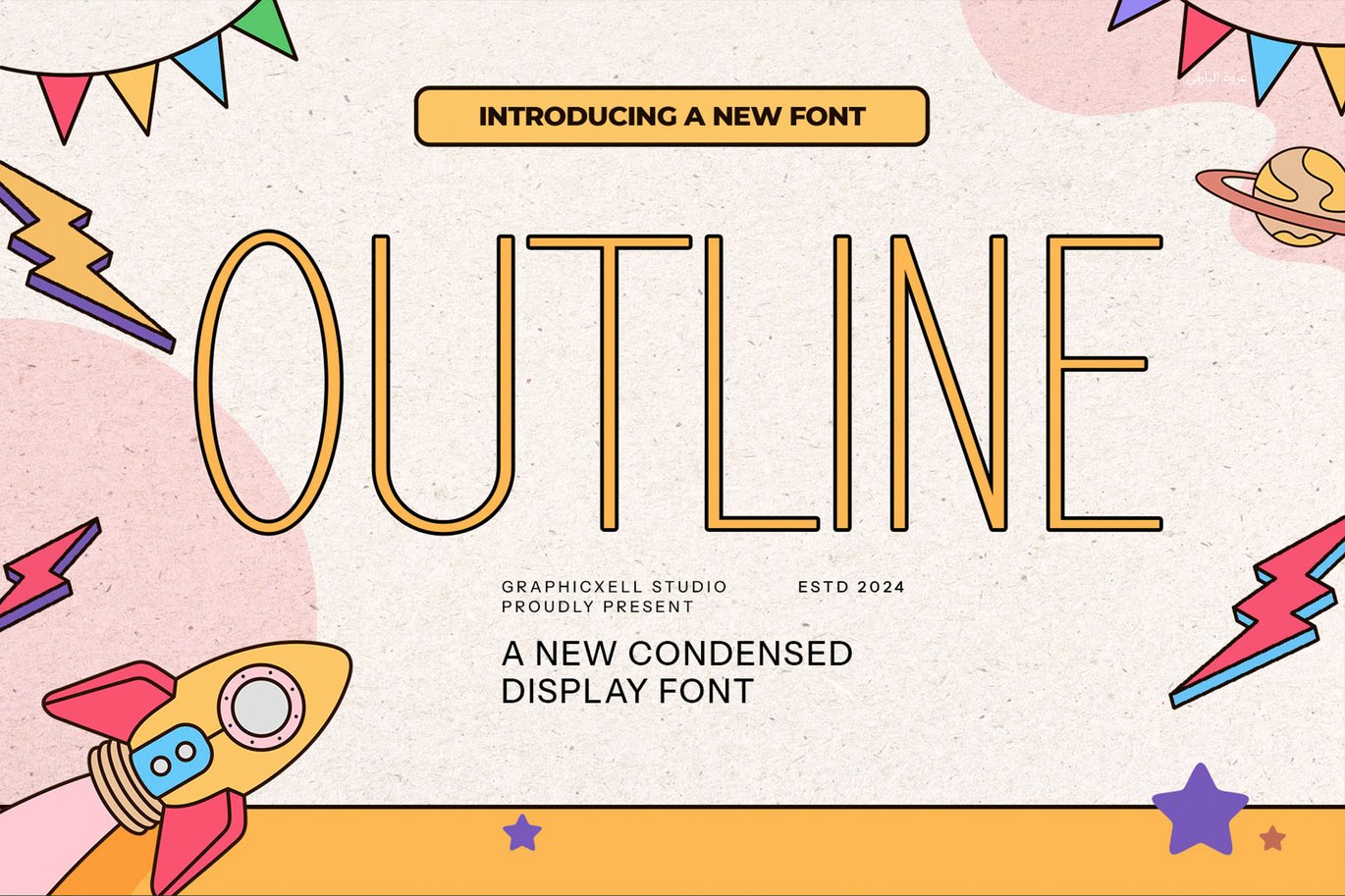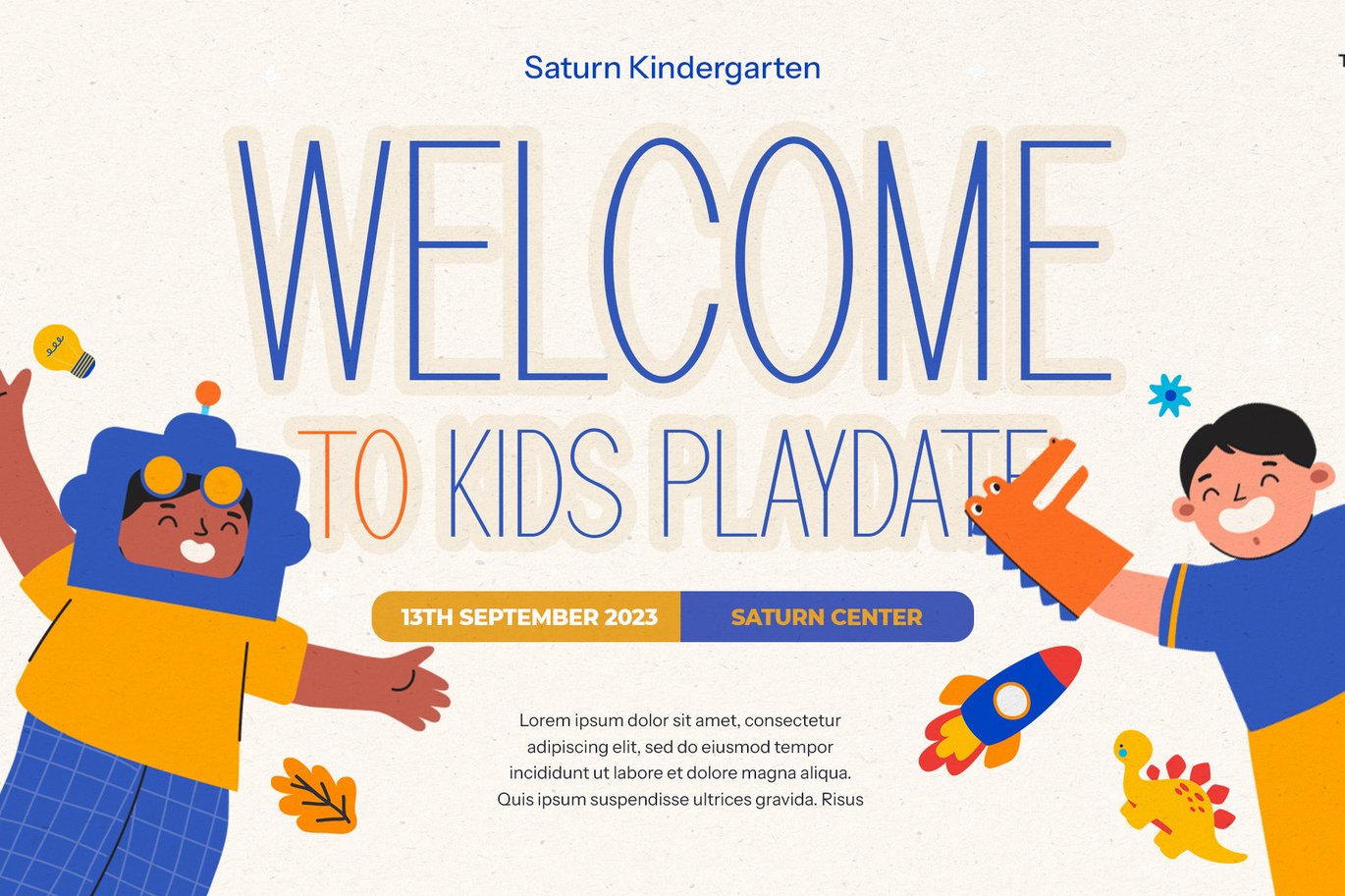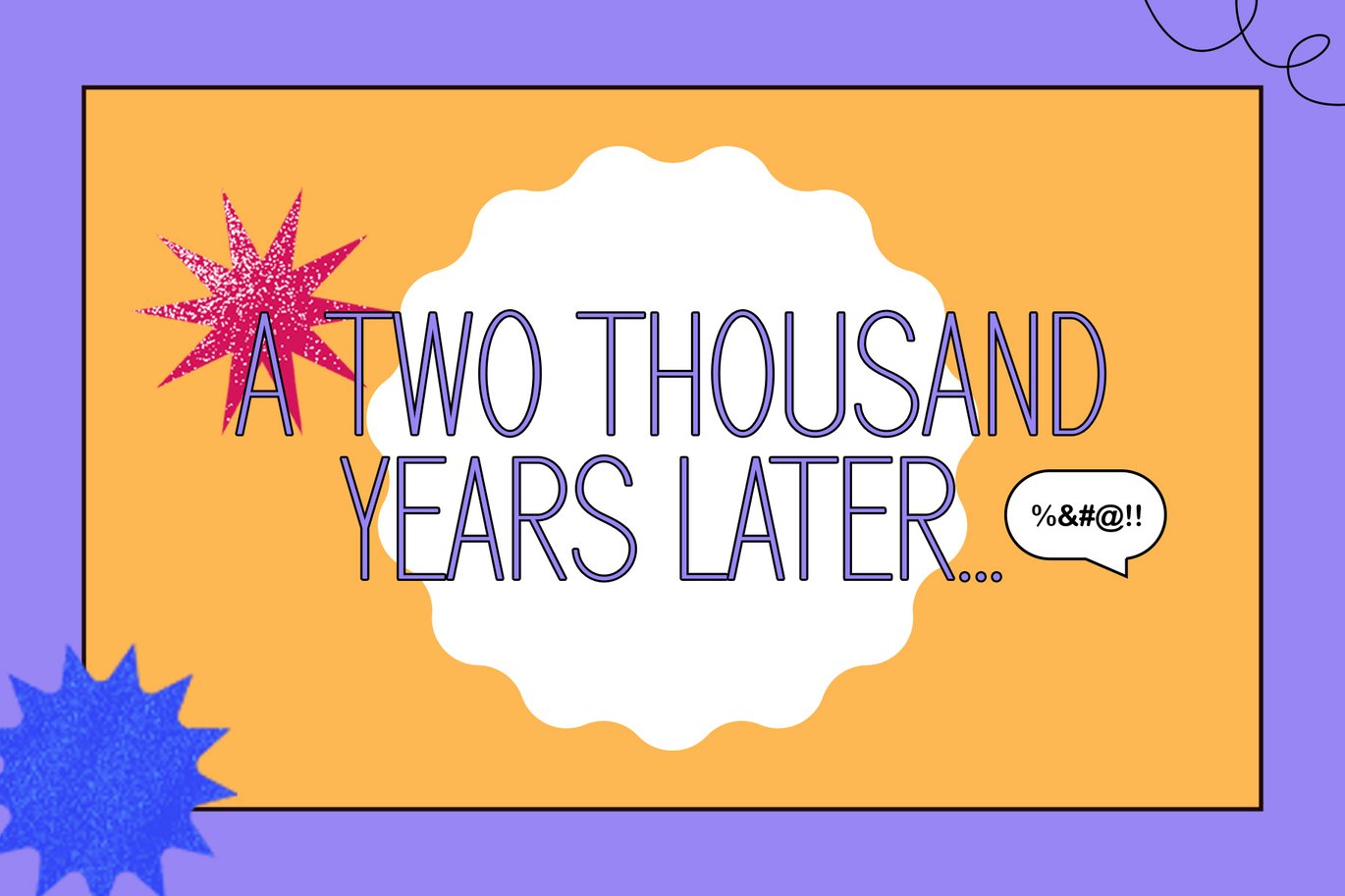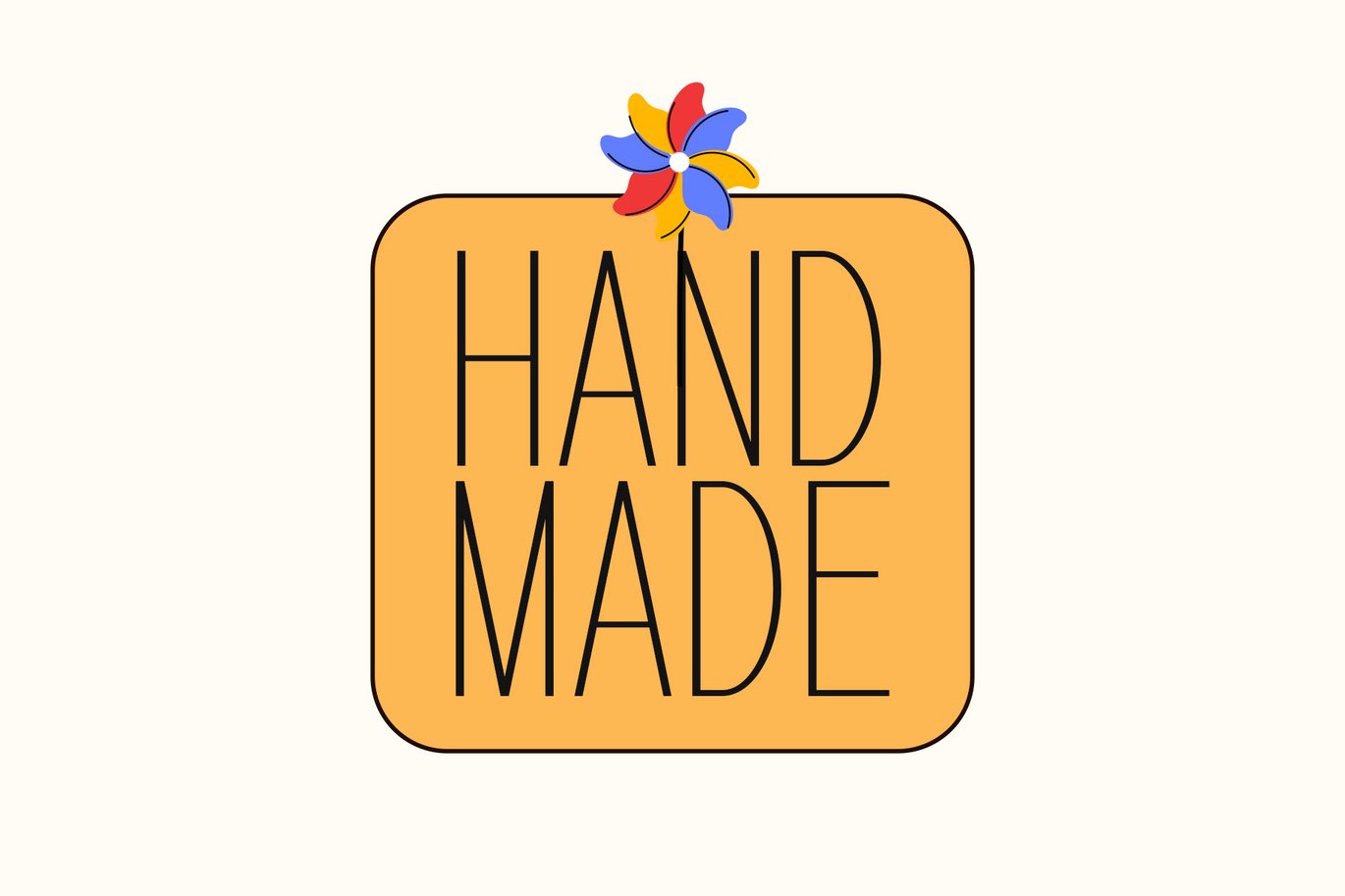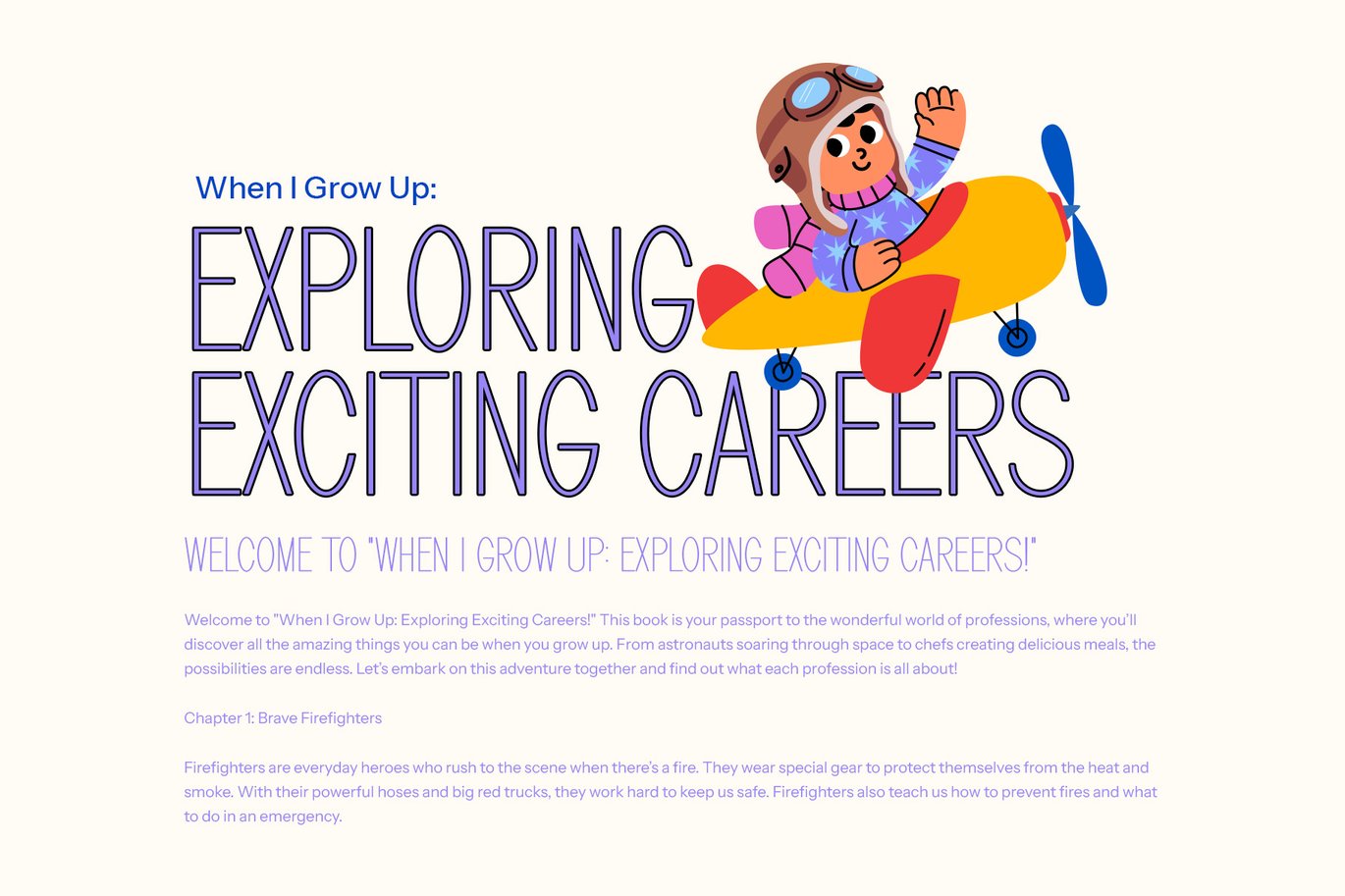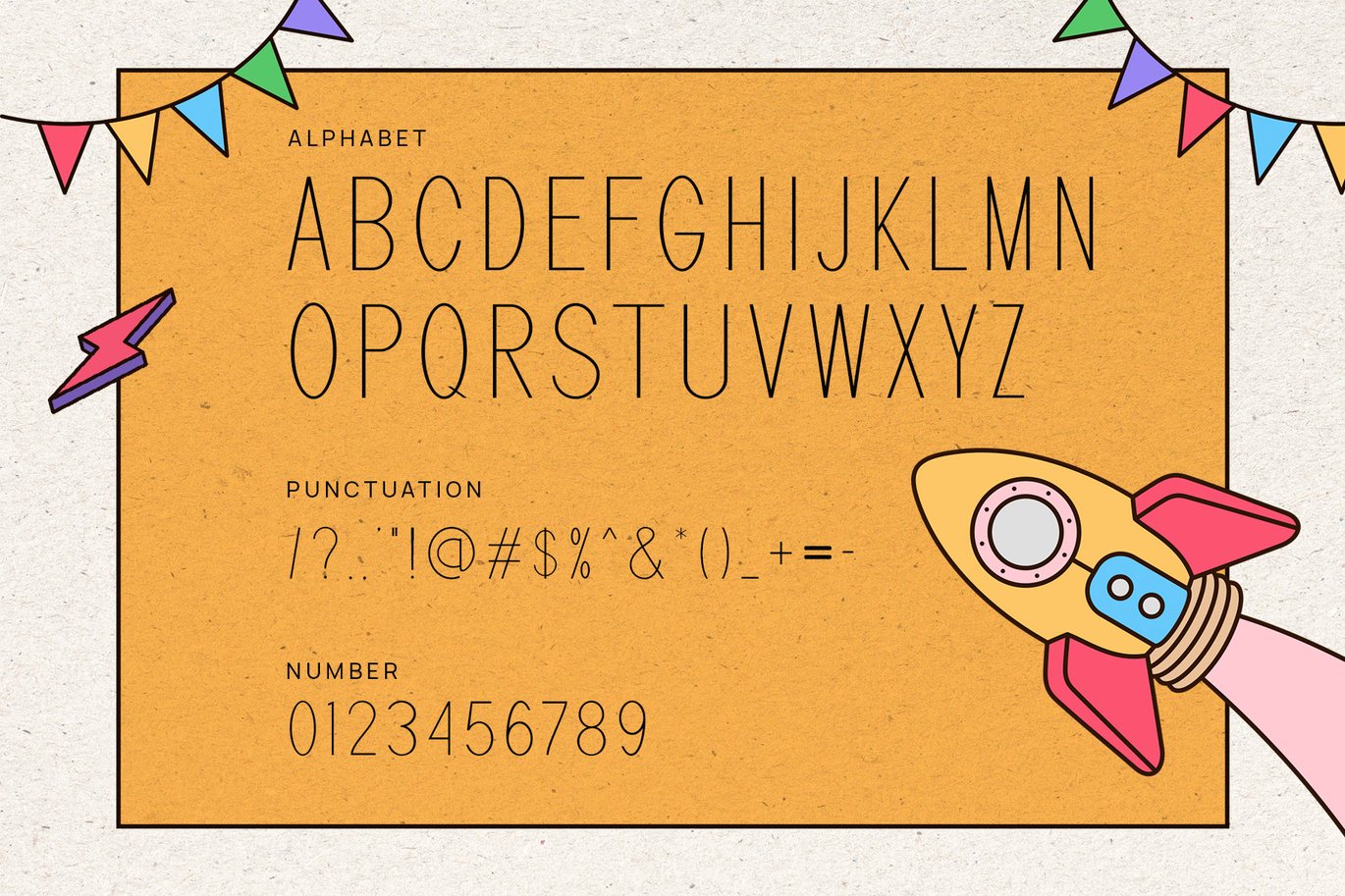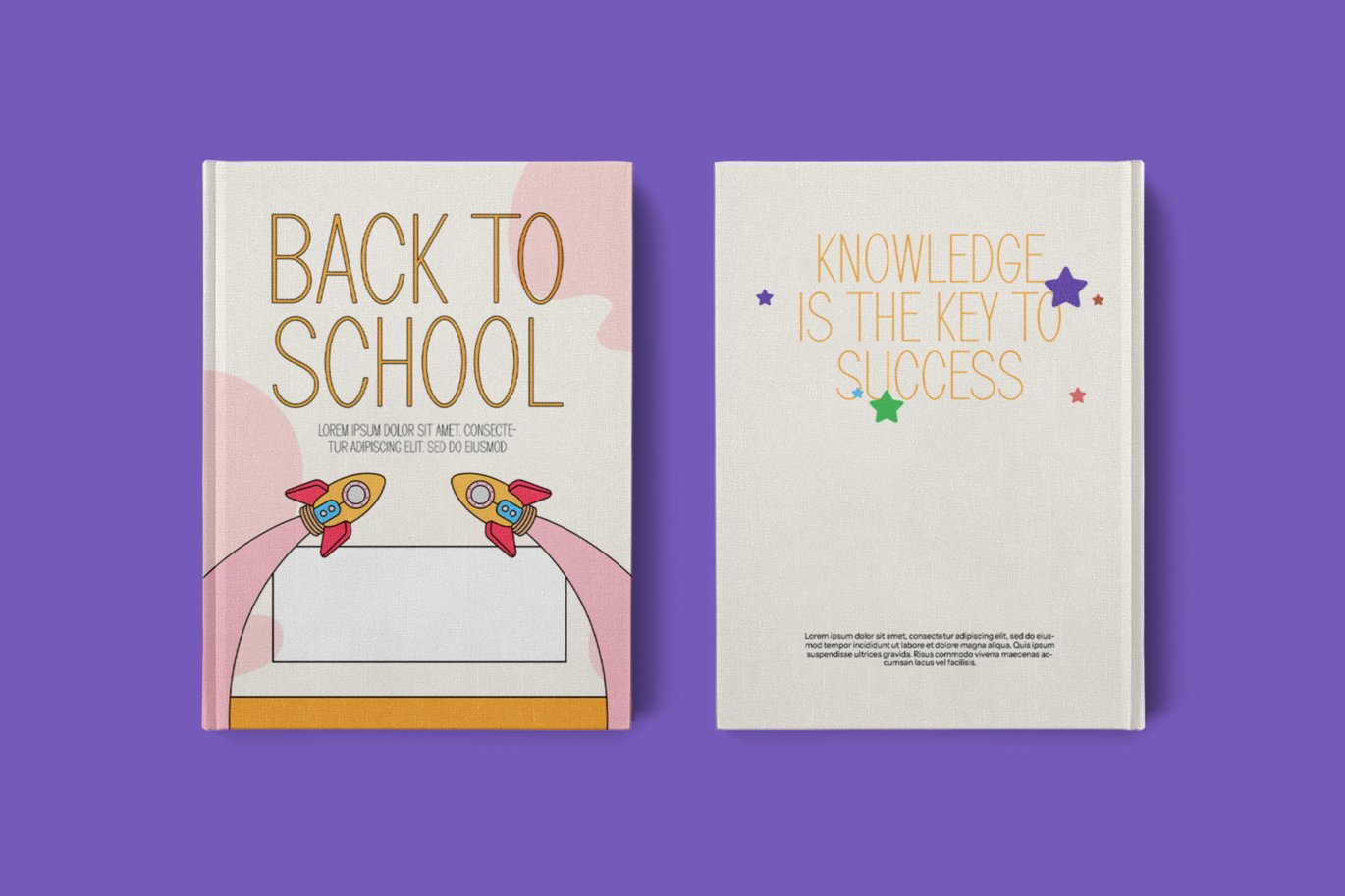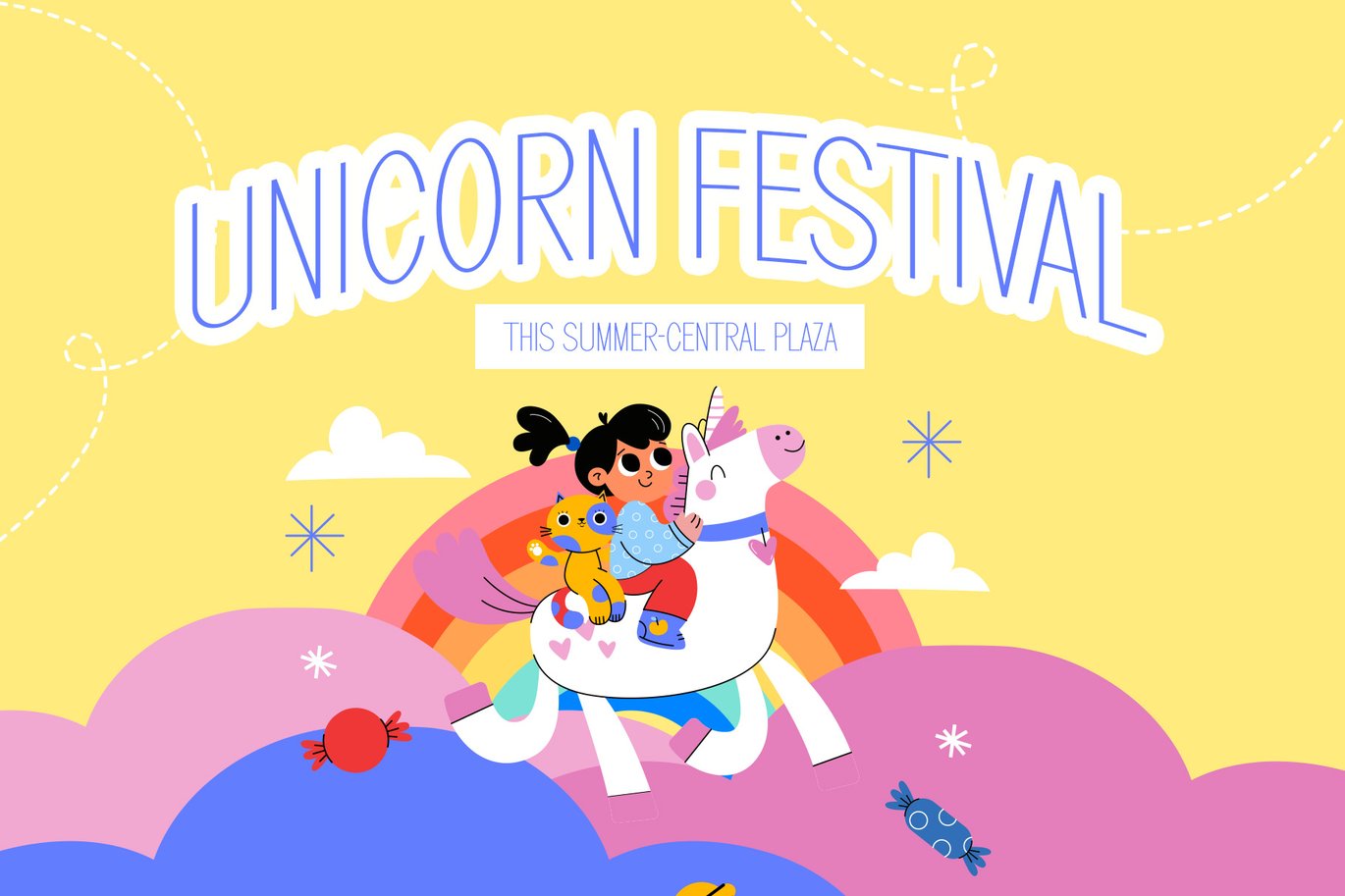
Outline Modern Sans Serif Font
Outline Modern Sans Serif Font Typeface inspired by the famous minimalist logo perfect for the purposes of designing templates, brochures, videos, advertising branding, logos, invitation, layout design, elegant crafting, beauty design and other
- International Accent
Fonts include multilingual support